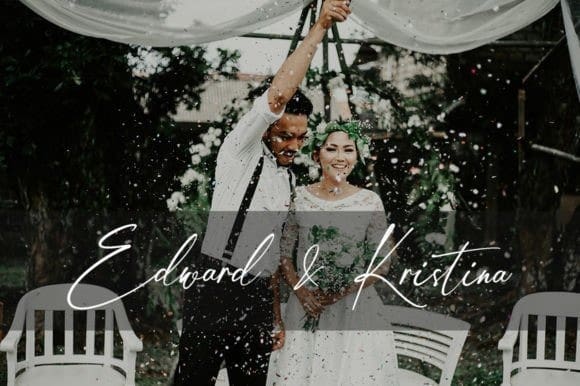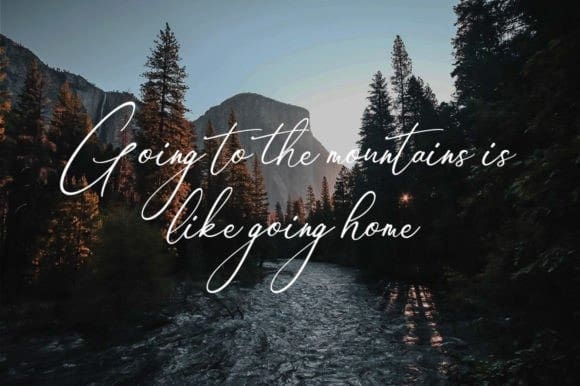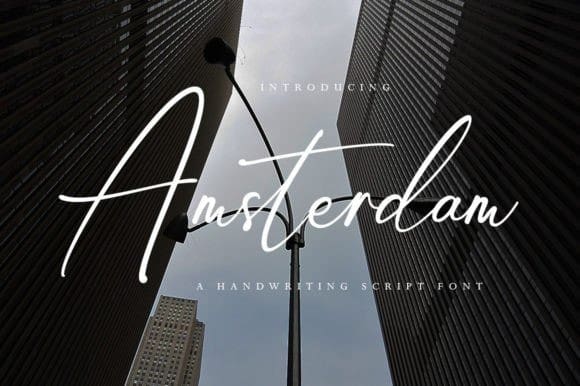
Amsterdam Handwriting Font
Amsterdam Handwriting Font, is a modern and elegant handwriting font with extraordinary charm. It is perfect for logos, invitations, stationery, wedding designs, social media posts, advertisements, product packaging, product designs, label, photography, watermark, special events, or anything that needs a romantic, handwritten touch.